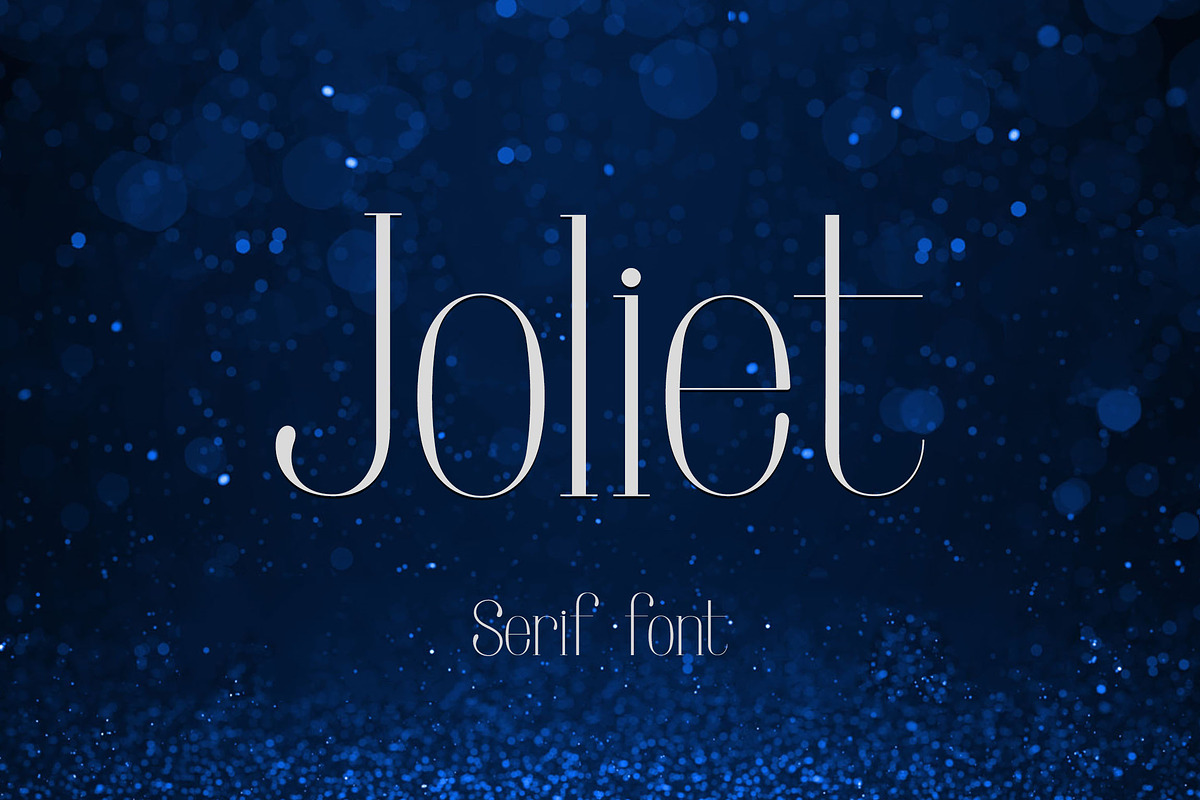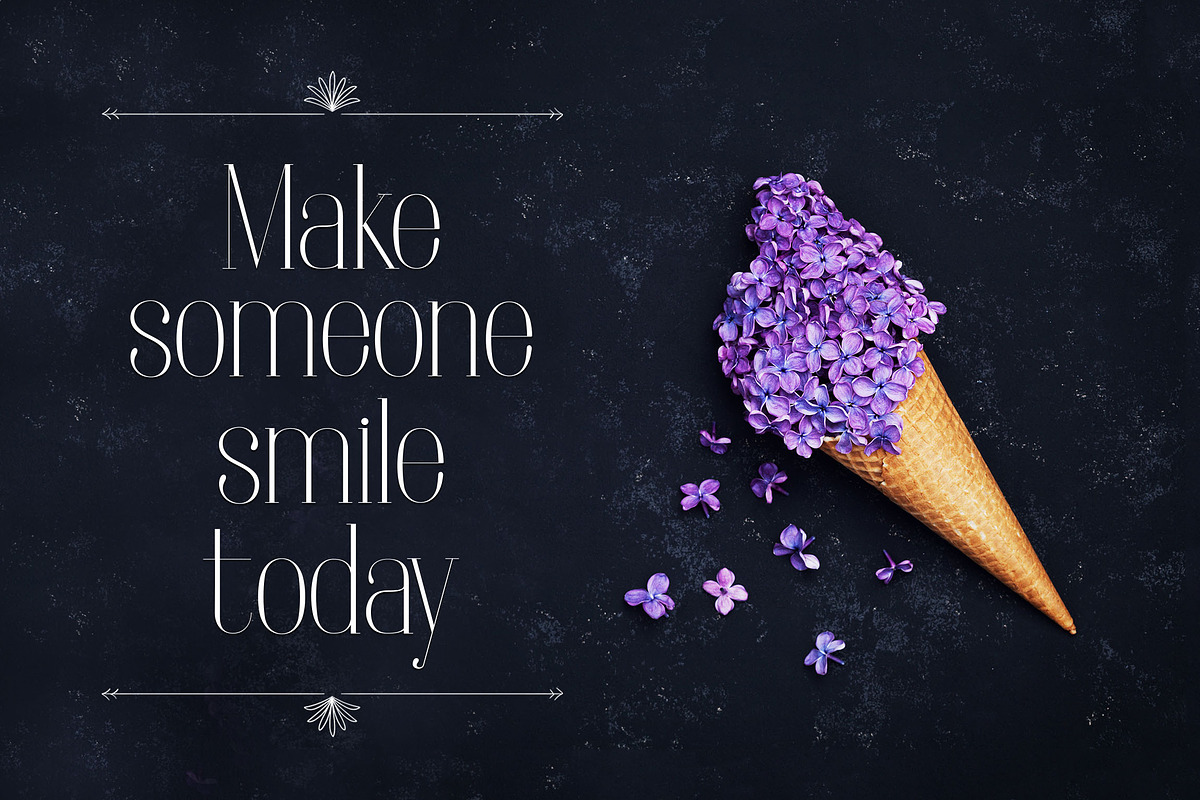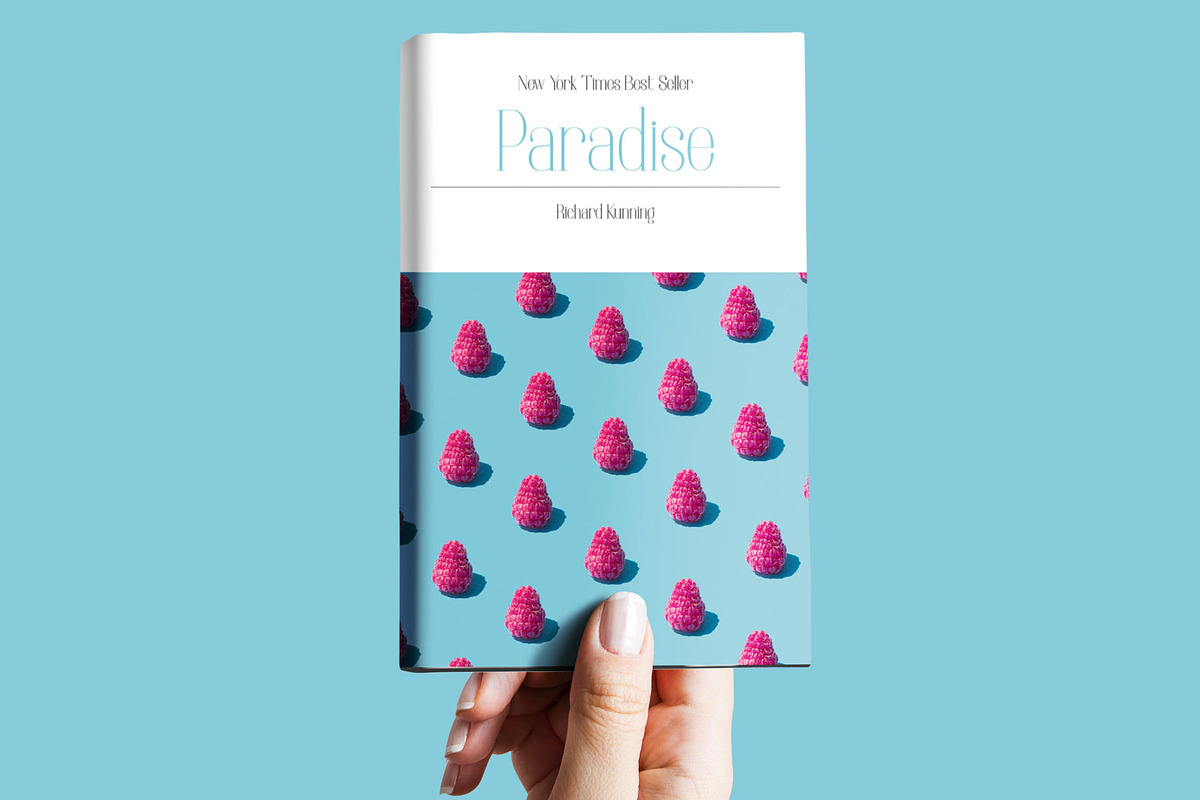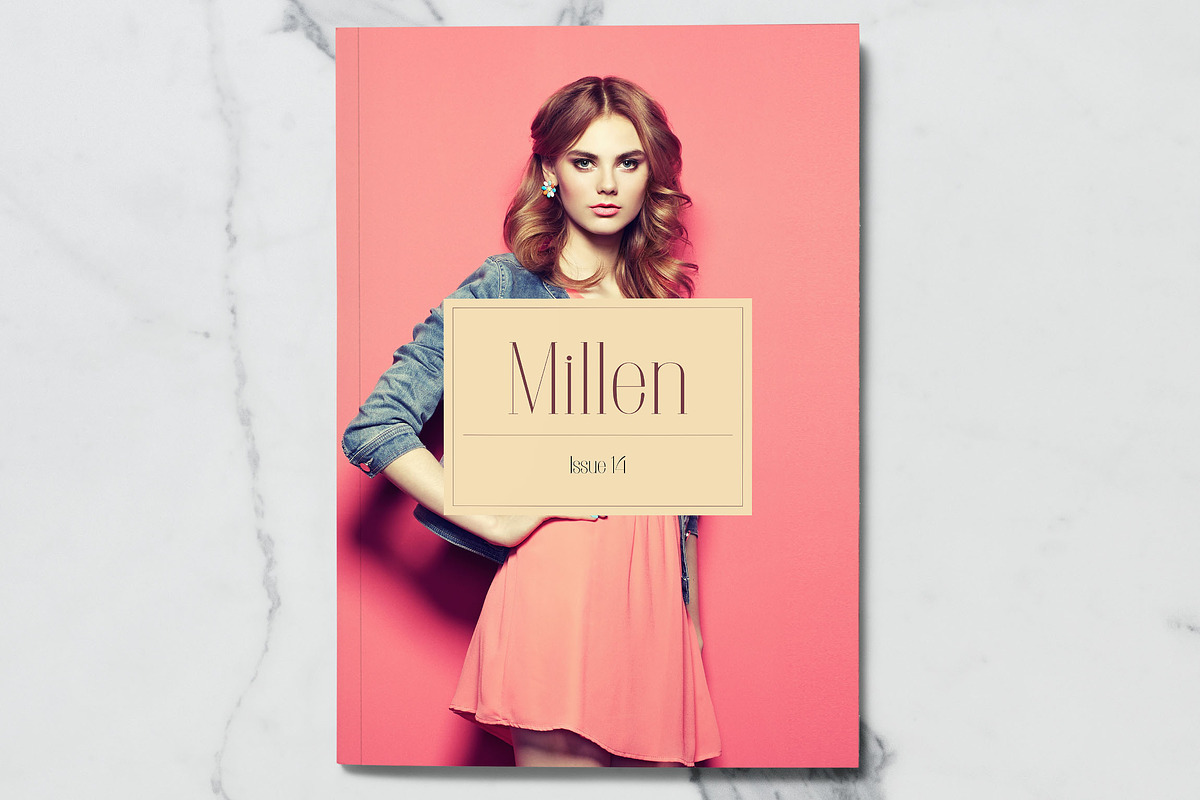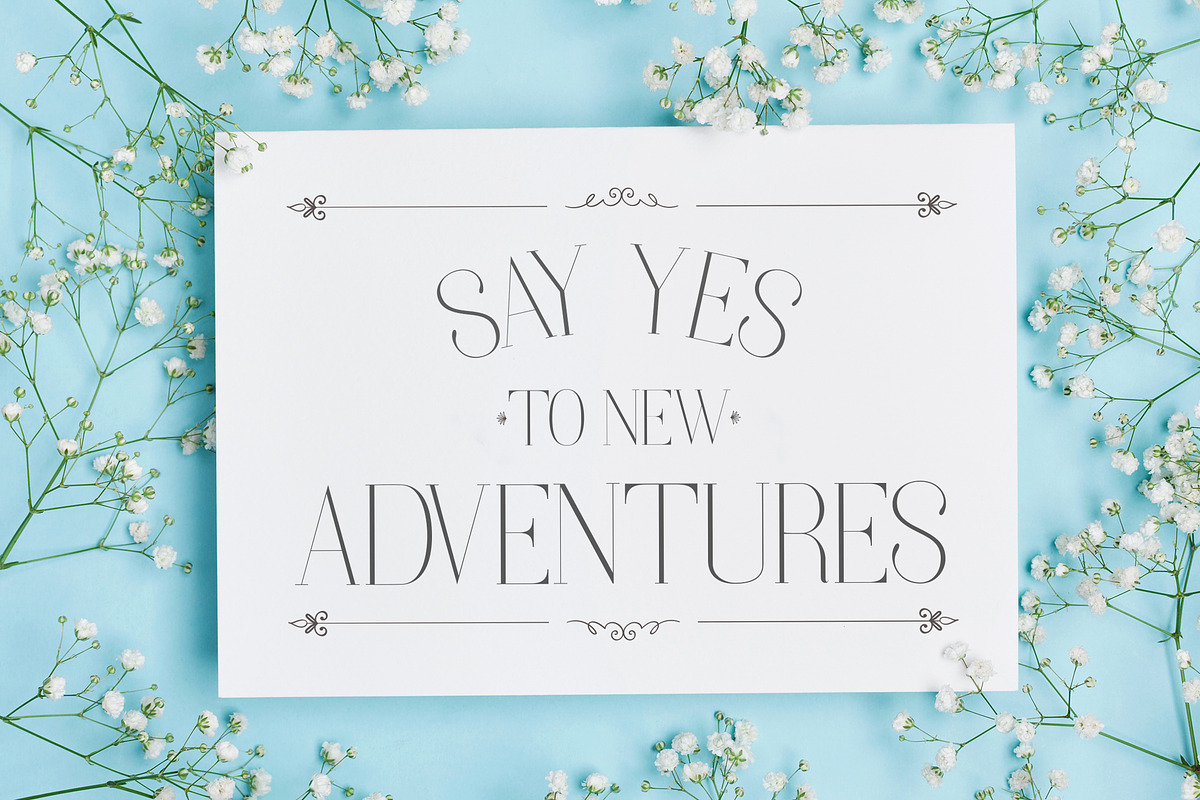
Joliet - Feminine Serif Font
Joliet is a serif typeface perfect for elegant headlines and logo designs. it pairs nicely with script and sans serif fonts.